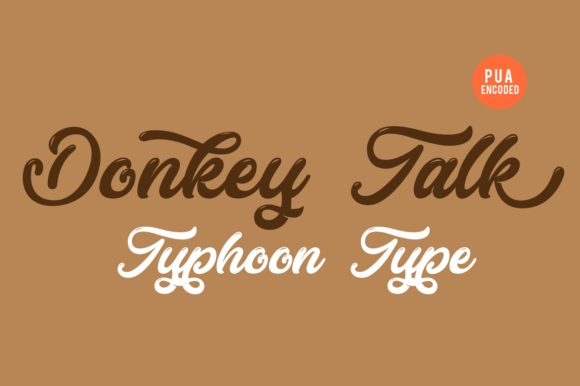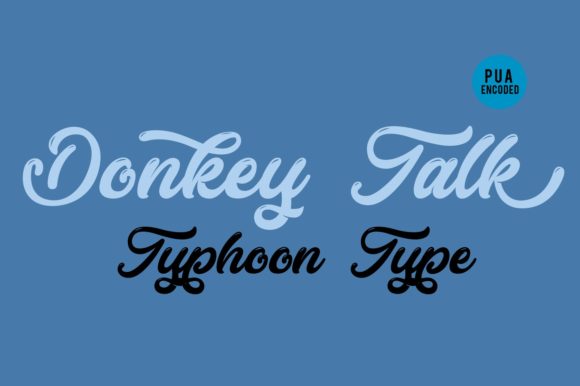
HomeScript FontsDonkey Talk Font Script Fonts Donkey Talk Font FacebookXPinterestWhatsApp Donkey Talk Font Poster 2 About Donkey Talk Font Donkey Talk is a cool and fun script with a unique style! DOWNLOAD NOW People also explored Lastory Font Dear Disya Font Localova Font Suboseto Font Raisa Font Rose Monogram Font Sallim Besok Font Ionia Font Walkies Spearh Font 283 0 TagsDonkey Talk Font Previous articleLanoline FontNext articleMother Batik Font LEAVE A REPLY Cancel reply Comment: Please enter your comment! Name:* Please enter your name here Email:* You have entered an incorrect email address! Please enter your email address here Website: Save my name, email, and website in this browser for the next time I comment. Personal Use Free DREXS Personal Use Free Read more about this font Abuget Free Script Personal Use Free Read more about this font Pelmeshka Personal Use Free Read more about this font Comic Caps Personal Use Free Read more about this font BLOG 5 Fonts That Will Dominate Design Trends in 2026 5 Fonts for 2026 That Will Dominate Design Trends Typography plays a critical role in visual communication, and as we look ahead to 2026, it’s... To increase your work productivity, choose the most readable fonts. Best Fonts for T-Shirt Design – Top 2025 Picks Elegant Wedding Invitation Fonts – Handwritten & Script Fonts